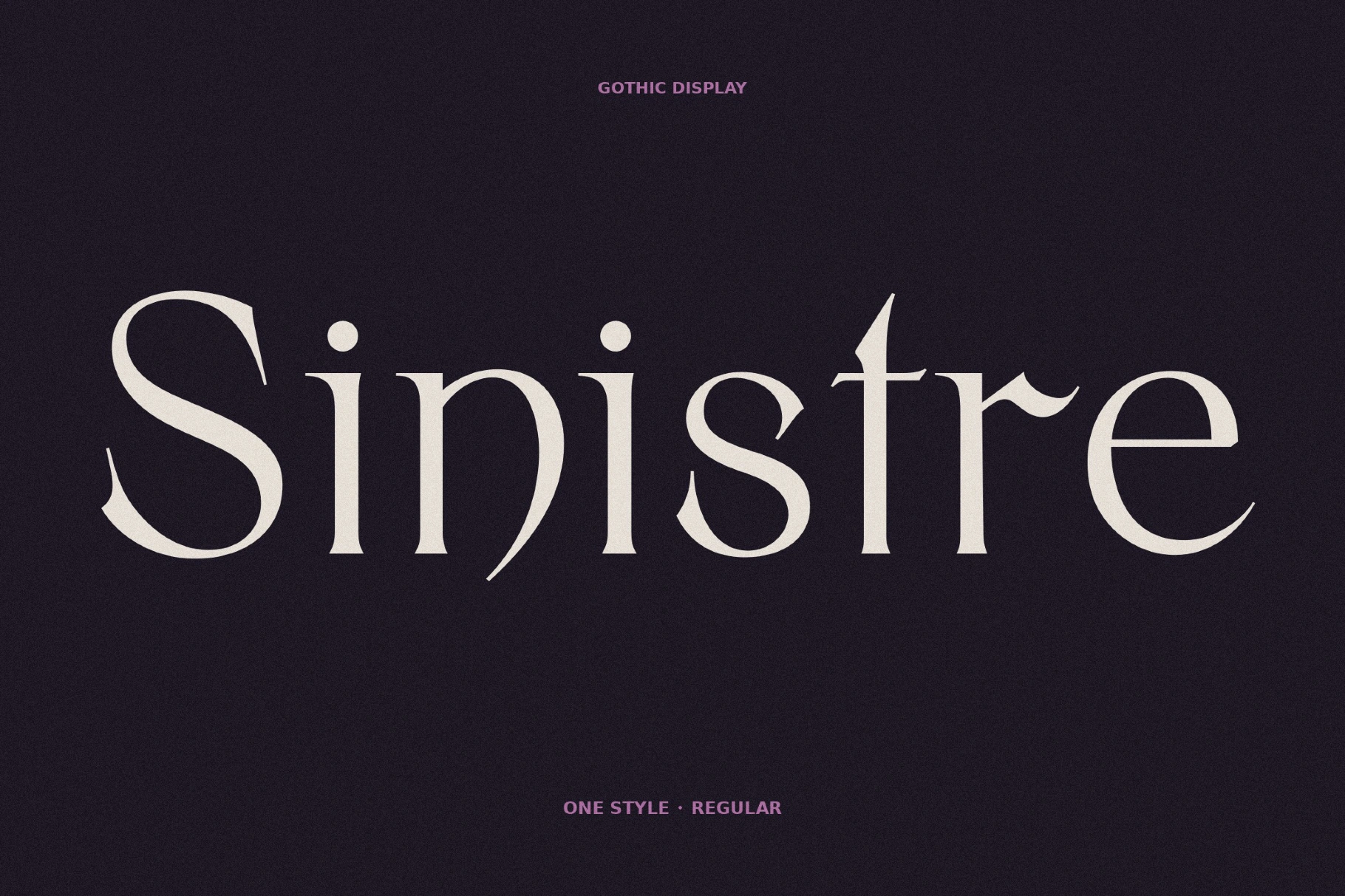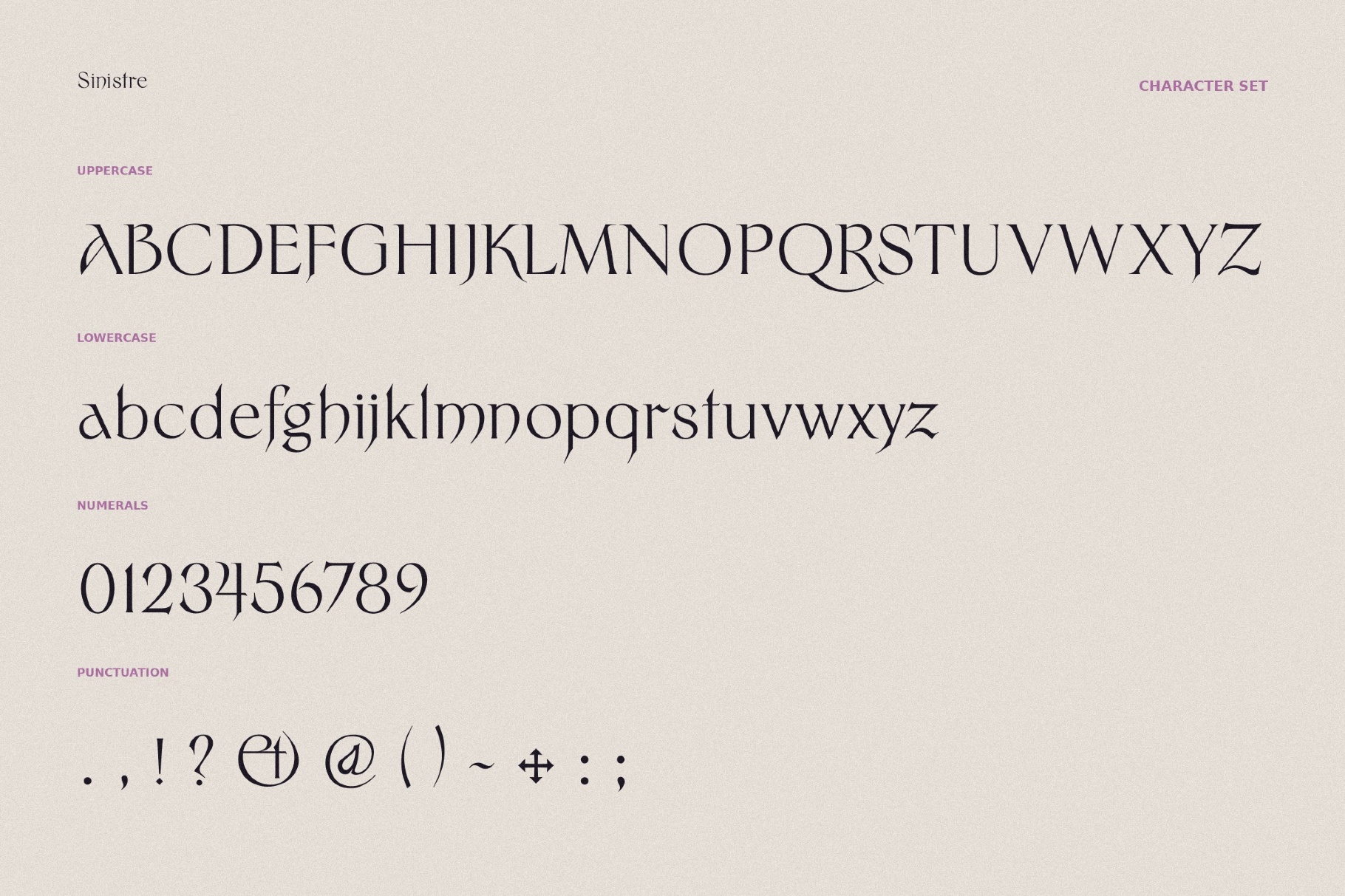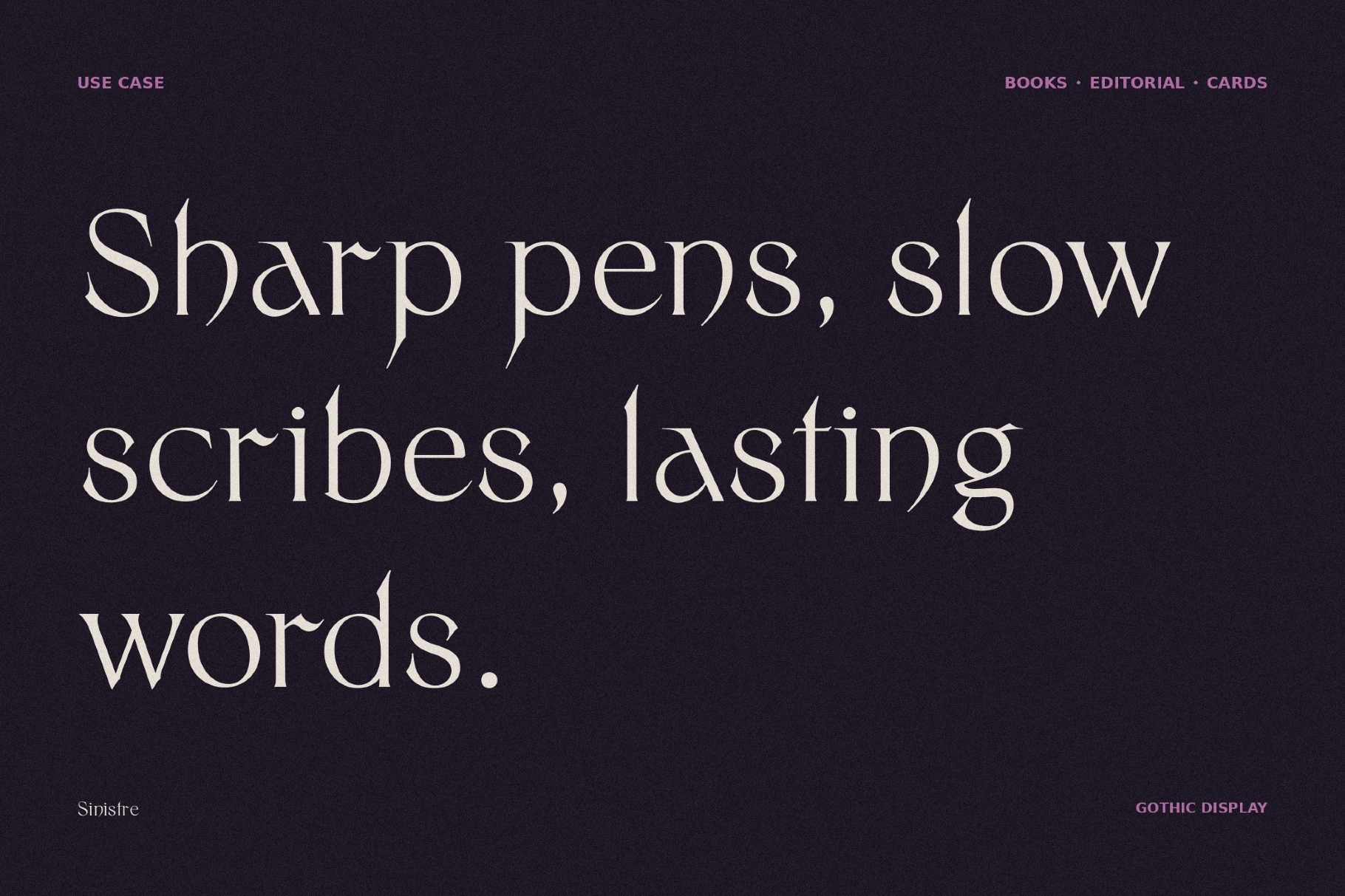
Sinistre - Decadent Horror Font
Sinistre sharpens elegant serif forms into long, blade-like terminals and creates airy, high-contrast effects. Its mood sits between Decadent book design, Art Nouveau poster lettering, and silent-era horror titles.
The font is a strong fit for luxury packaging, dark fashion identities, thriller covers, fragrance campaigns, exhibition posters, album artwork, editorial headlines, boutique branding, and cinematic title treatments.